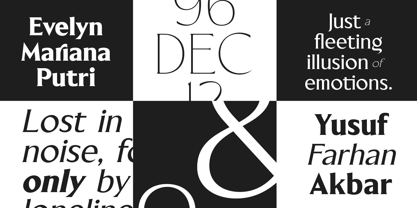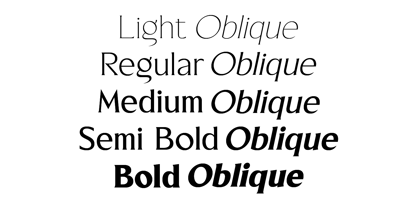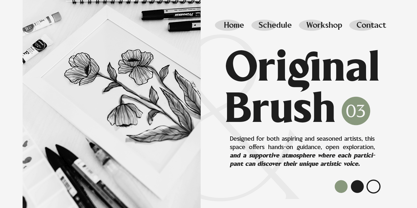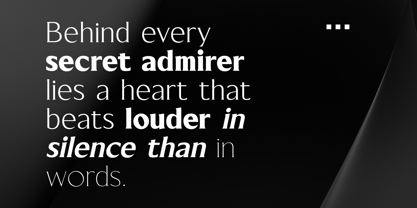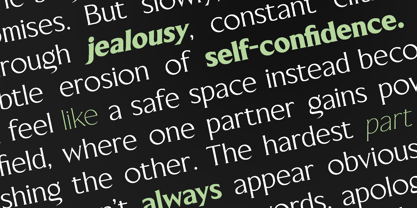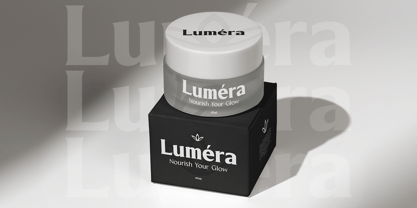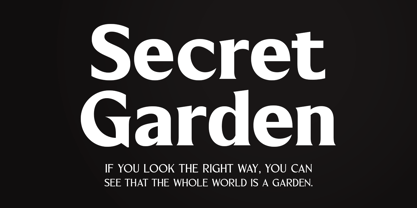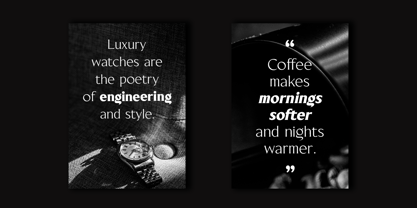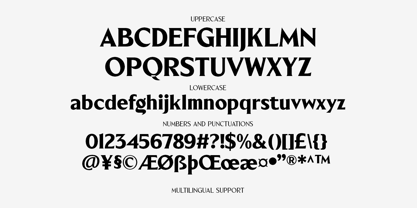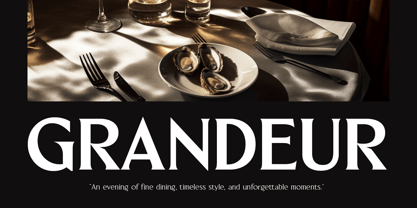
Blackney
The Blackney Font Family was designed by Ahmad Ramzi Fahruddin and published by Arterfak Project. Blackney contains 10 styles and family package options. More about this family
Blackney is a strong serif font with medium contrast, inspired by gothic style and modern-classic fashion. It is carefully designed with medium ascenders to give a solid appearance, while its sharp serifs make the letters look bold and confident.
Blackney is a display typeface, perfect for headlines, subheadings, and short body text in magazines, books, fashion editorials, quotes, hipster t-shirts, signboards, logos, and more. It comes in 5 weights from Light to Bold, each with a matching slant style — a great choice for creating a bold and daring visual concept!